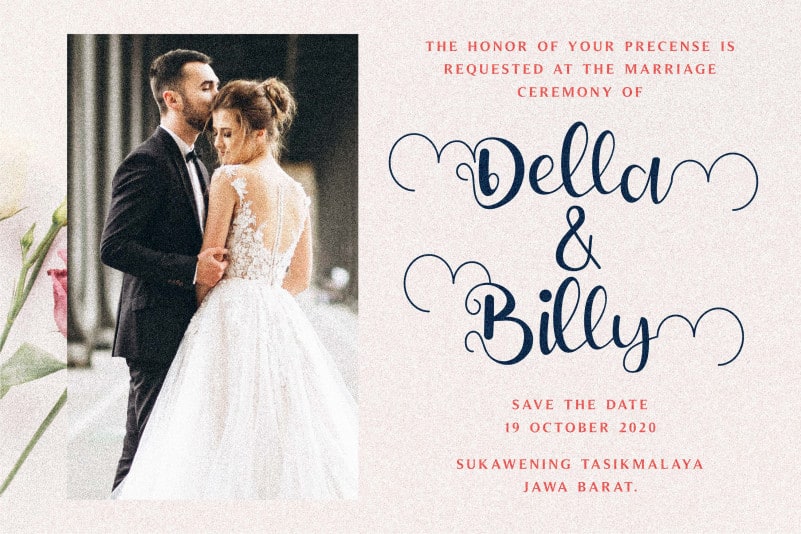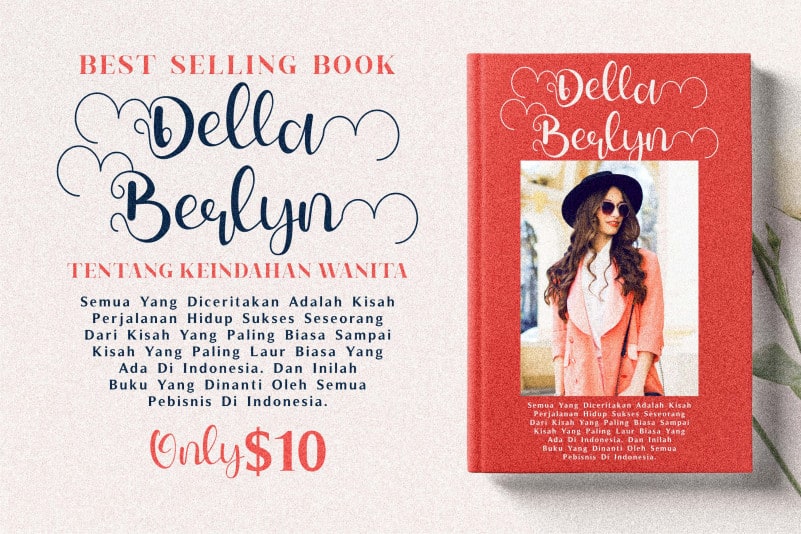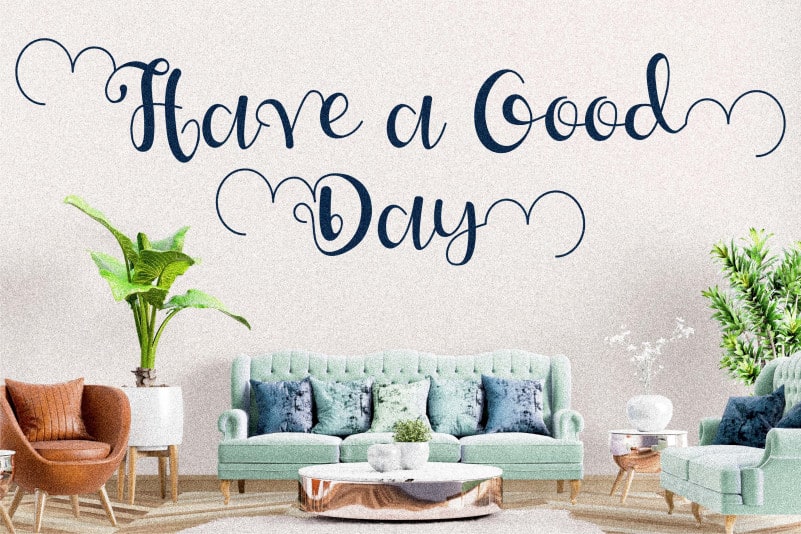
Della Berlyn Calligraphy Font
Della Berlyn Calligraphy Font is a romantic and sweet script font. It looks stunning on wedding invitations, thank you cards, quotes, greeting cards, logos, business cards and every other design which needs a handwritten touch. It features a varying baseline, smooth lines, gorgeous glyphs and stunning alternates.